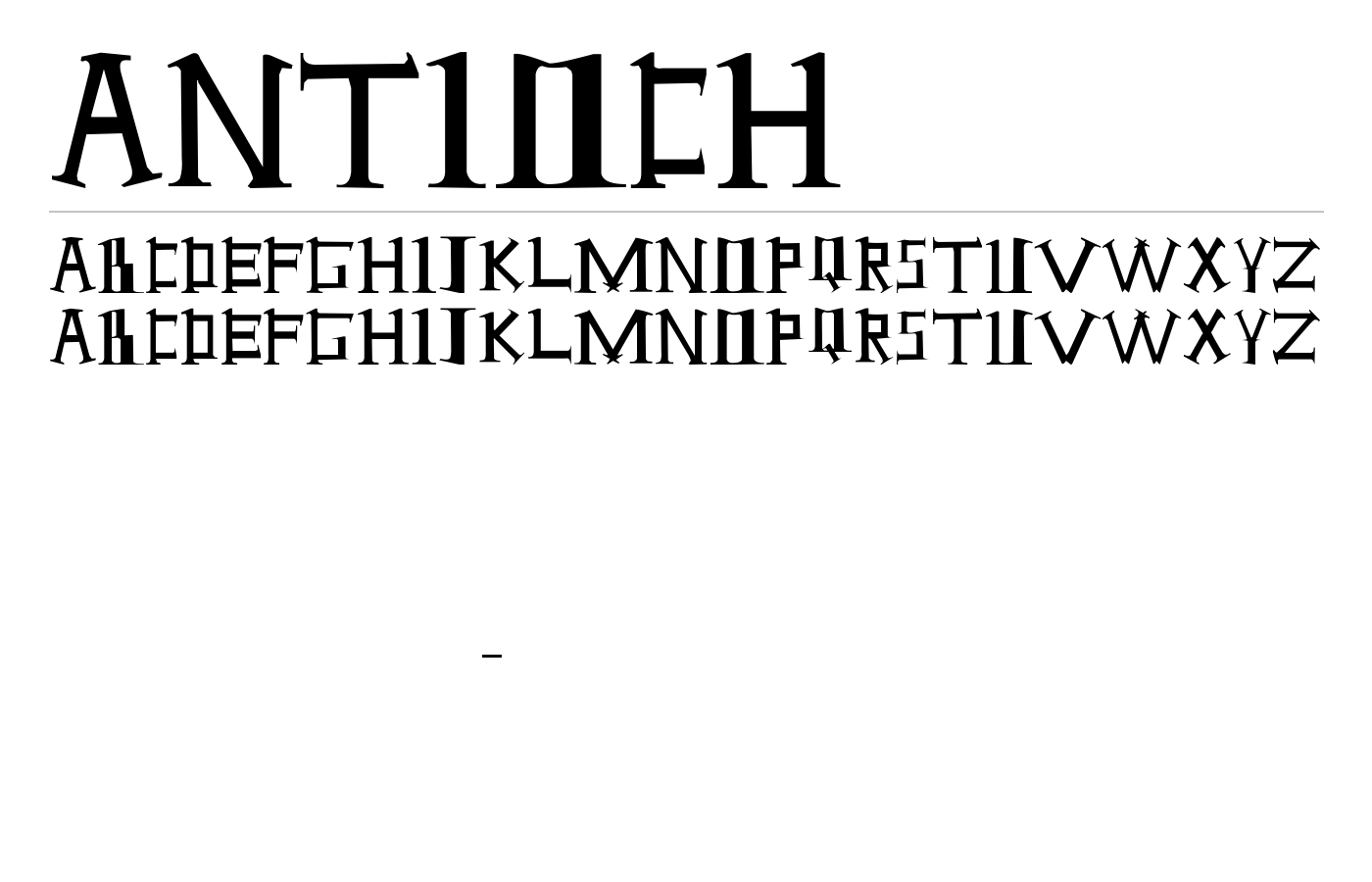
Antioch is a bold, condensed serif font with a distinctive medieval and gothic character, featuring sharp, angular strokes and bracketed serifs that create a dramatic, historical feel. Its high contrast and unique letterforms make it perfect for eye-catching headlines, logos, or branding projects that seek to convey a sense of tradition, strength, and mystery. This font works best in display settings where its strong personality can stand out and make a memorable impact.
Antioch Font
About Antioch Font